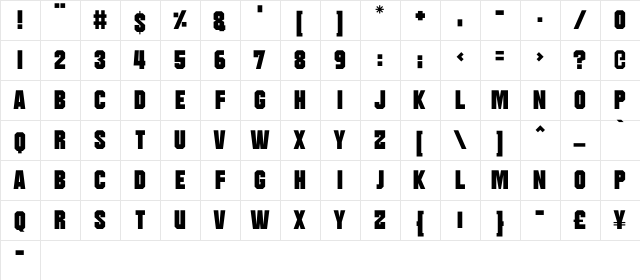
Moonbase Delta Regular
Design Context for Moonbase Delta Typeface
Moonbase Delta takes a measured approach to typography — its balanced proportions and neutral character make it a reliable workhorse for both digital and print work.